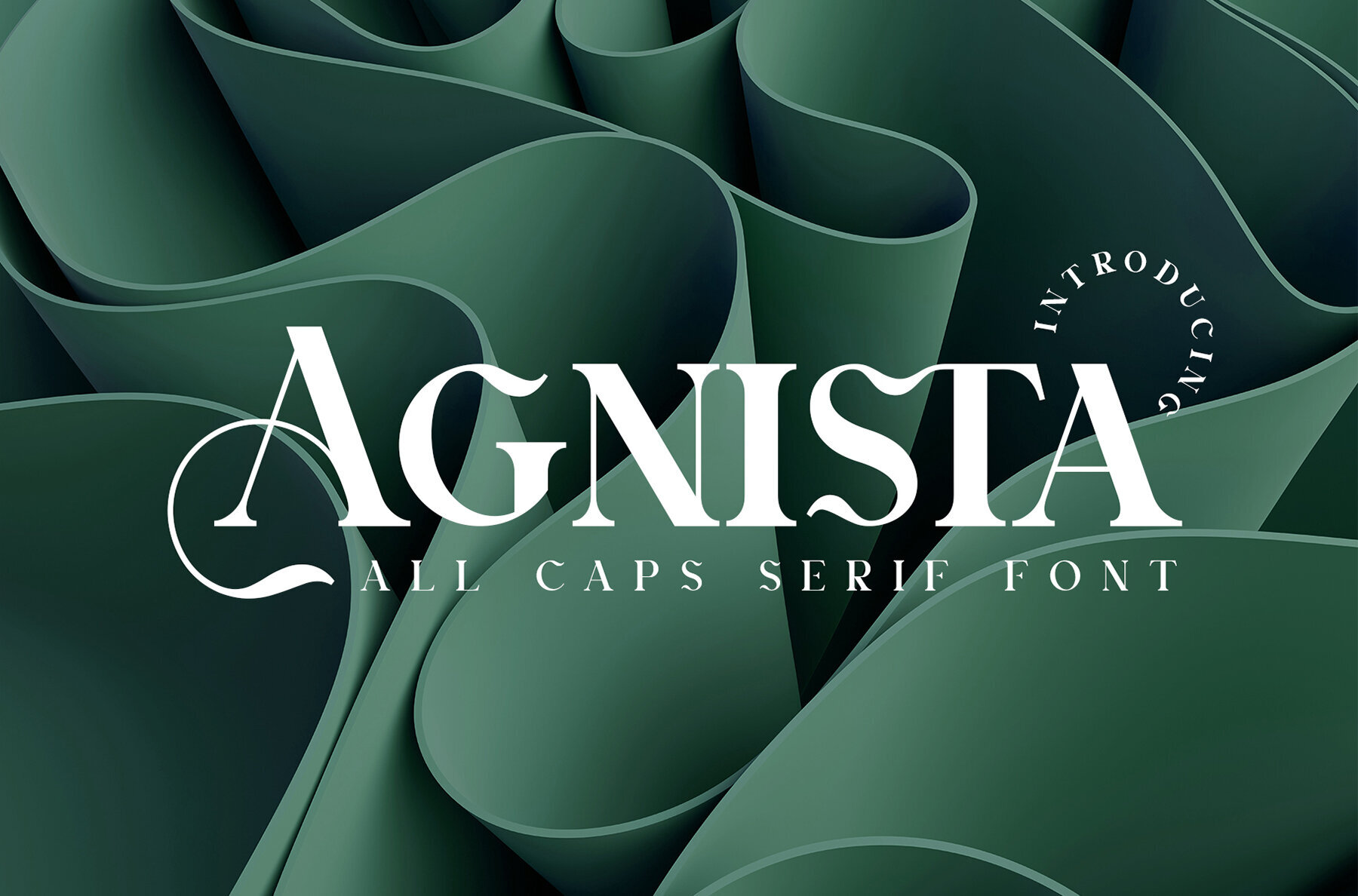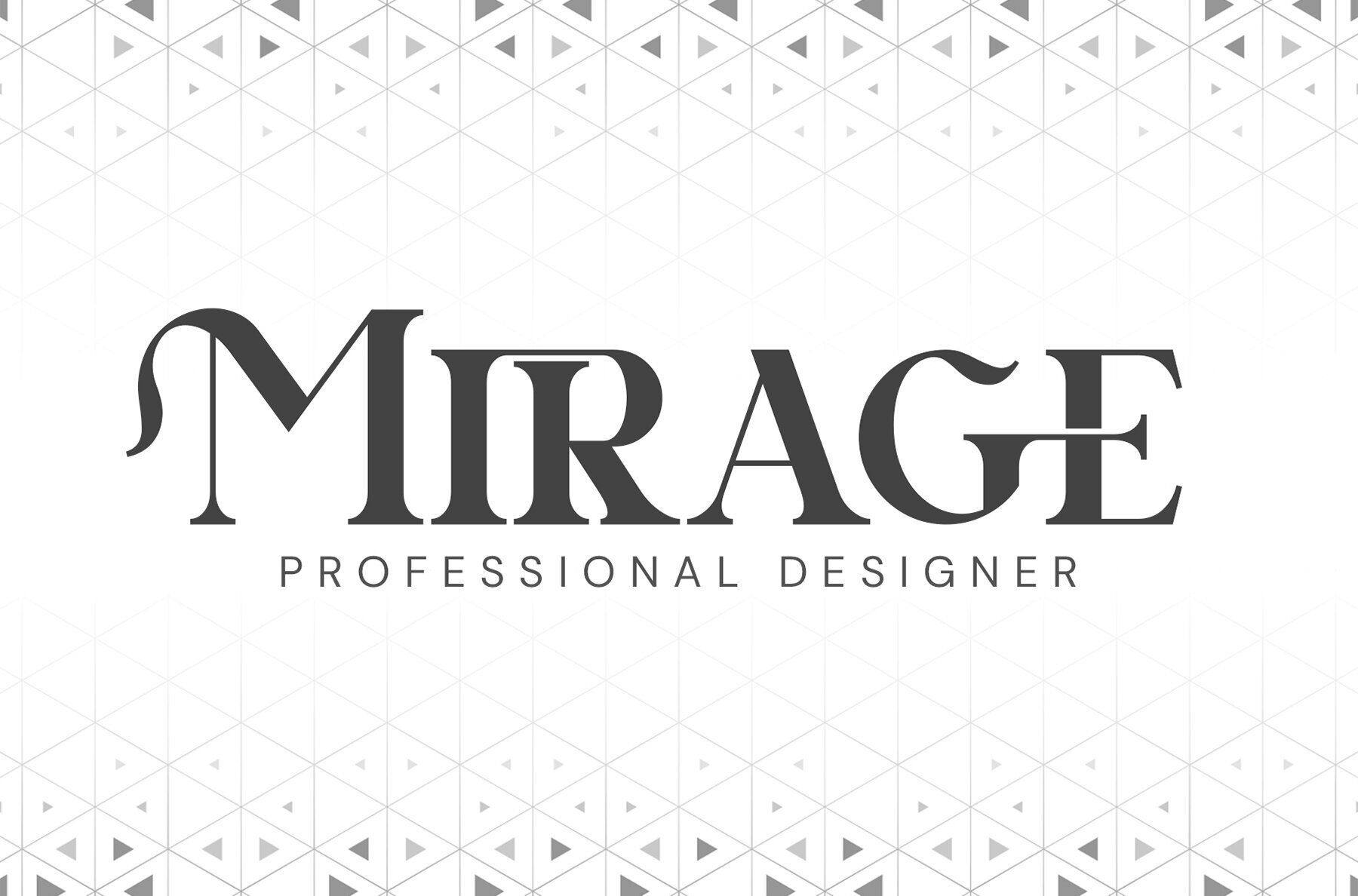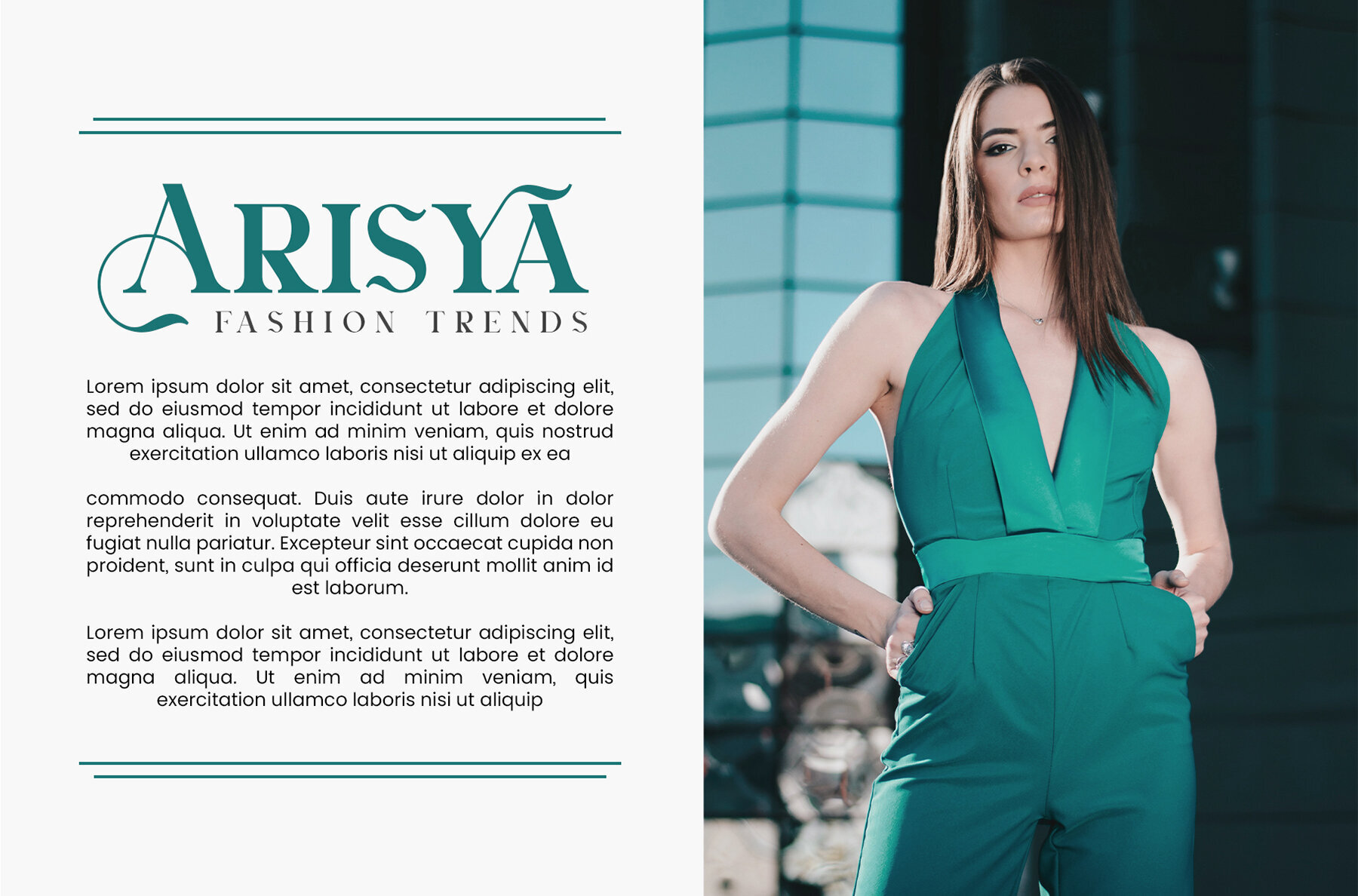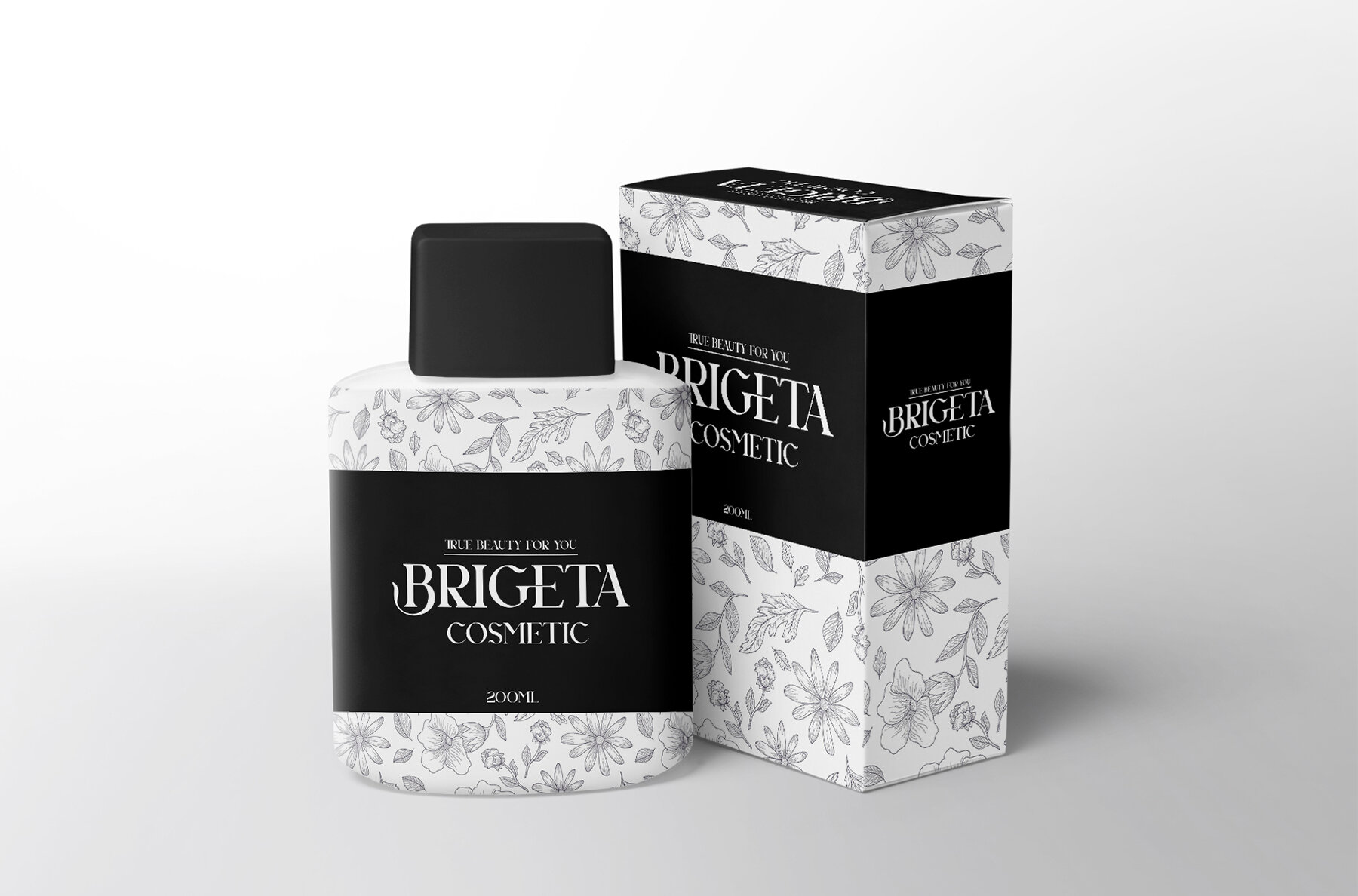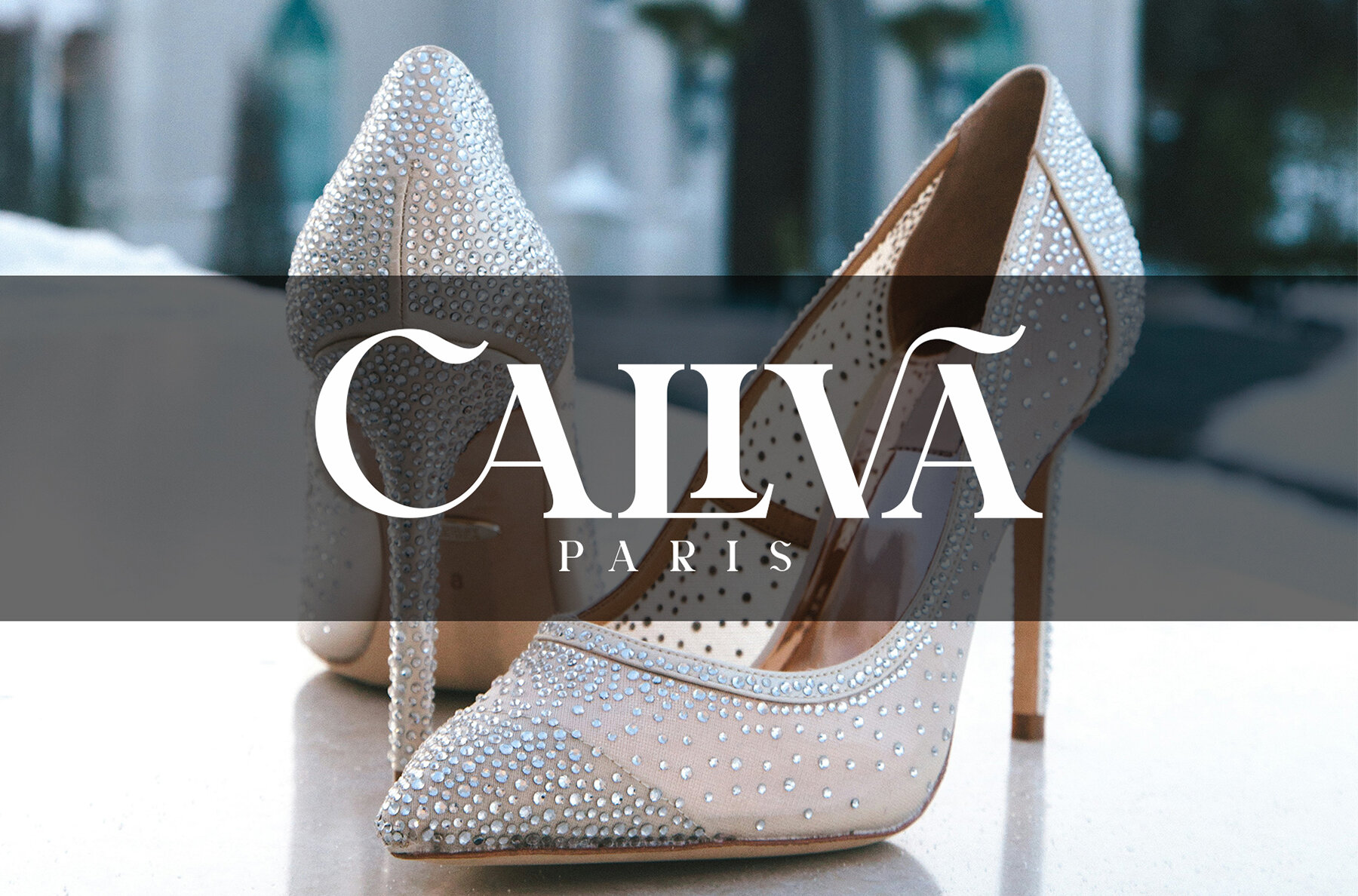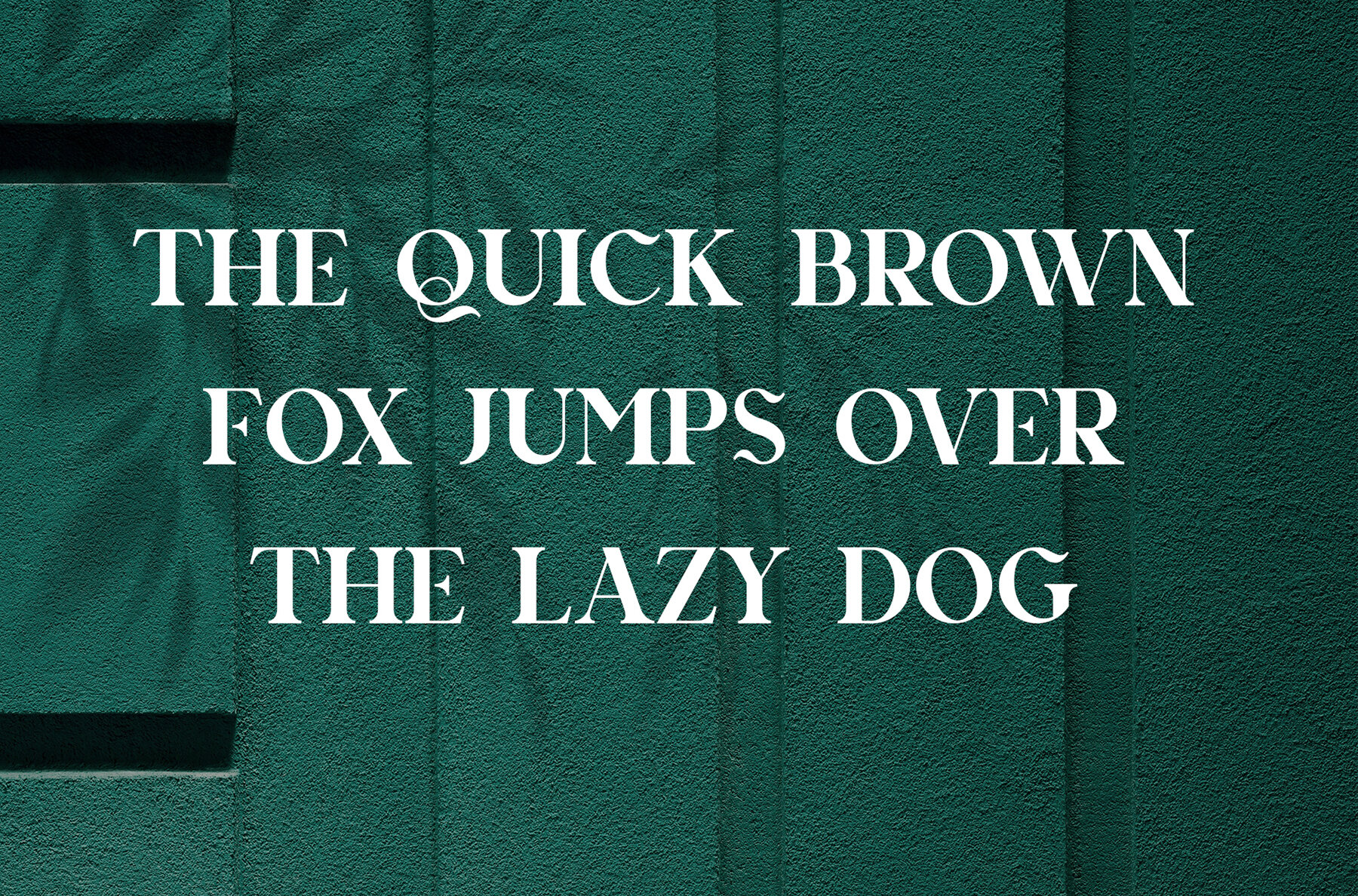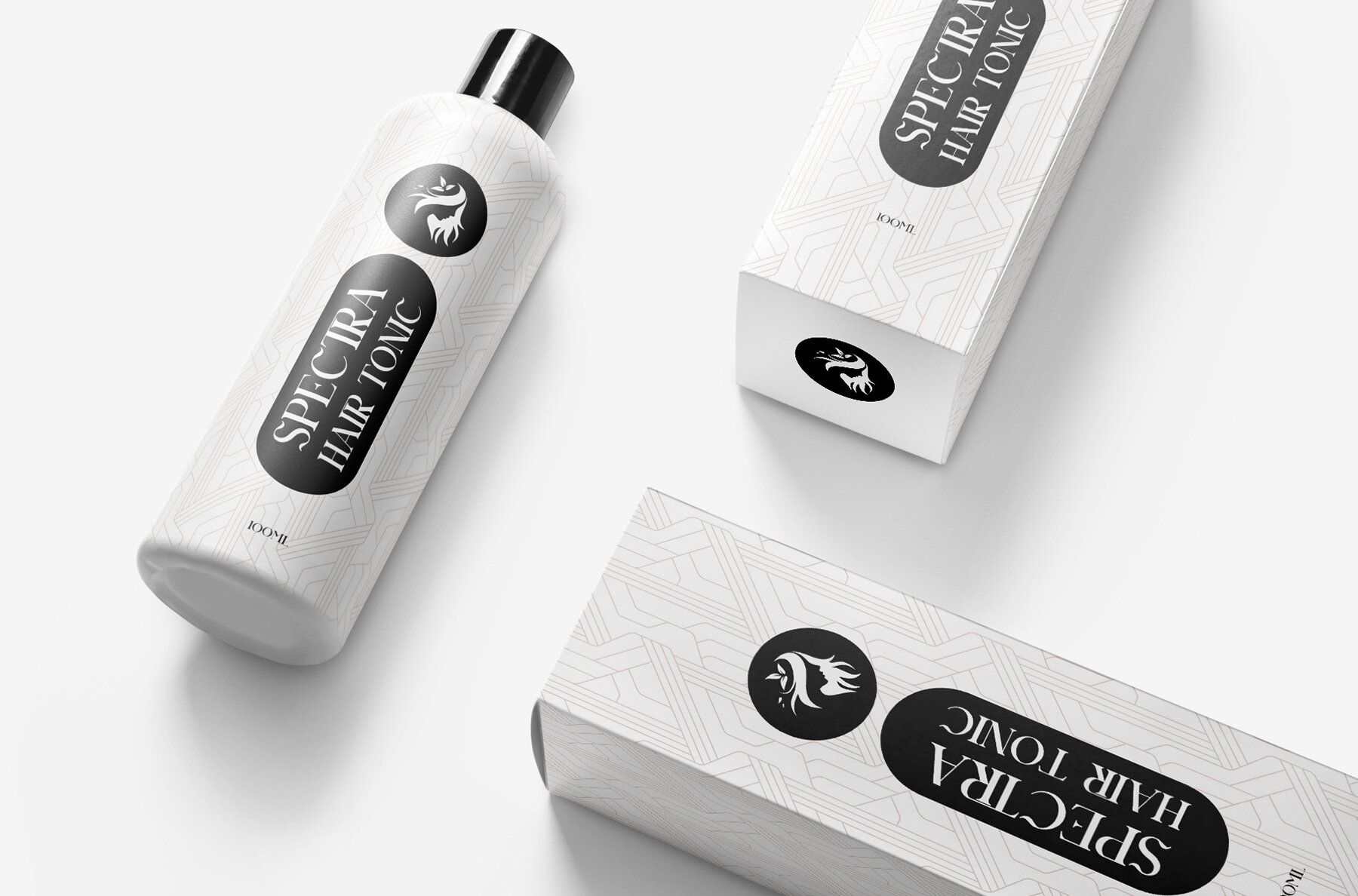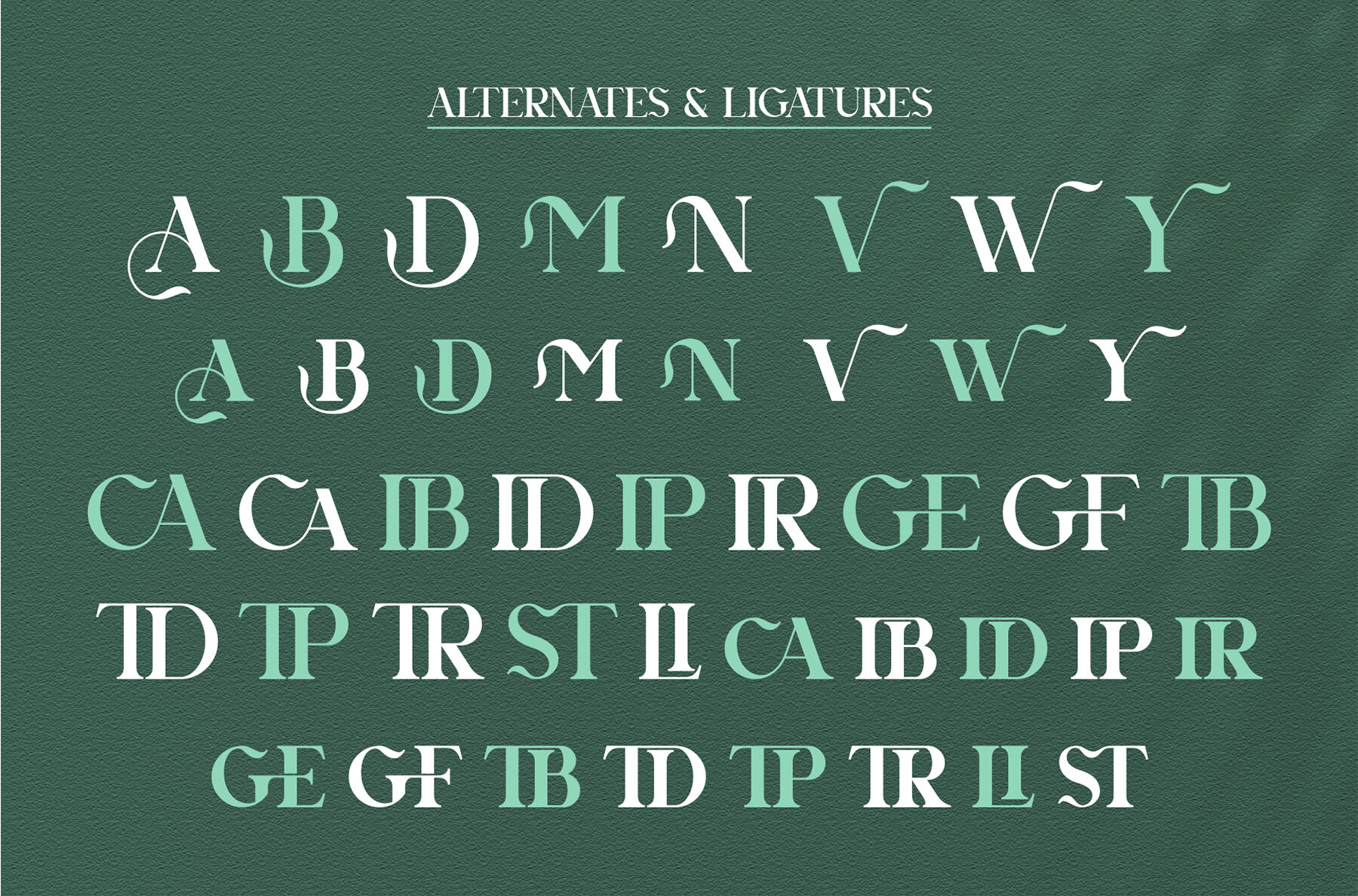
Agnista Font
Agnista Regular
Agnista Serif boasts balanced, smooth, and elegant serif characters, perfect for a variety of design projects. Its sophisticated style and unique alternations and ligatures make it an excellent choice for invitation cards, company logos, movie titles, business cards, book covers, and brand names. The font includes both uppercase and lowercase letters, numbering, and punctuation.
- Uppercase and lowercase letters
- Numbering and punctuation